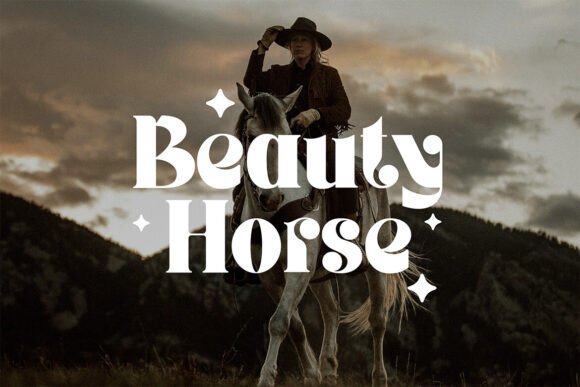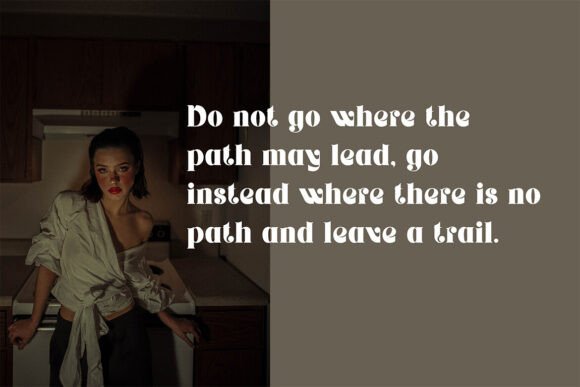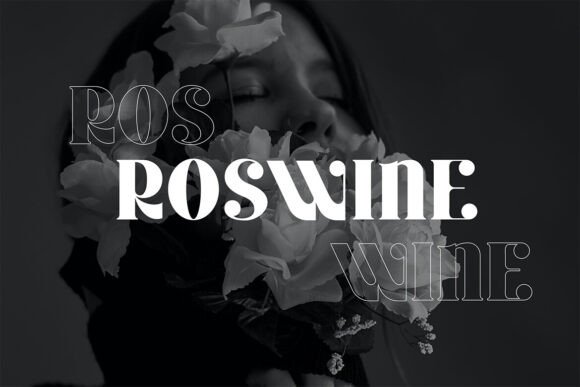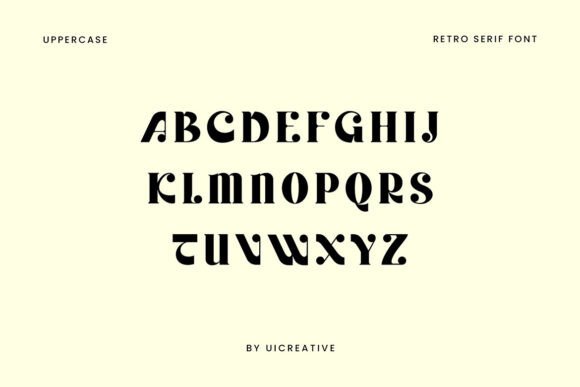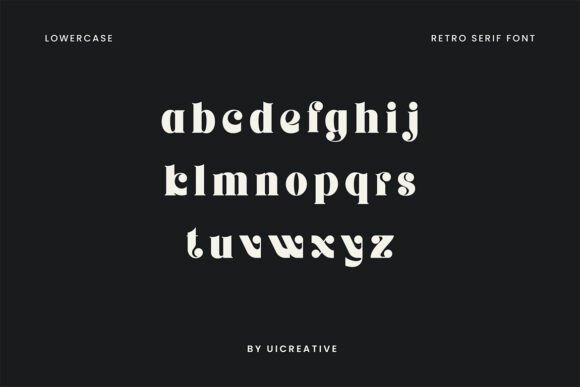
Introduction to Grandstand Font
As a designer, you know that finding the perfect font can be a game-changer for any creative project. It’s that moment when you stumble upon a design resource that elevates your entire concept – and the Grandstand Font is one of those gems. Imagine you’re working on a new logo, and you need a font that exudes a sense of sophistication and elegance, yet still conveys a touch of playfulness. That’s where Grandstand Font comes in – a retro serif font that’s perfect for a wide range of projects.
With its high-quality design and versatility, the Grandstand Font is an essential addition to any designer’s toolkit. Whether you’re working on a fashion-related branding project, creating editorial content, or simply need a font for your website headers, this font has got you covered. And the best part? You can even download it for free, with a transparent background to match your design needs.
Key Features of Grandstand Font
- High-quality design resource ideal for creative projects, including posters, flyers, and social media graphics.
- Features a transparent background, allowing for seamless integration with any design element.
- Unique characteristics include a bold, modern aesthetic and a wide range of style options.
- Suitable for use in a variety of creative projects, from advertisements to editorial content.
Honest Review: Grandstand Font
I recently came across the Grandstand Font and was excited to dive in and see what it had to offer. As a designer, I’m always on the lookout for high-quality design resources to elevate my creative projects.
- High-quality design: Grandstand Font is clean, crisp, and visually appealing.
- Limited character set: The font only includes a limited character set, which may not be suitable for projects that require a wide range of characters.
- Not suitable for complex text: The font may not be the best choice for projects that require a lot of complex text, such as long paragraphs or dense copy.
Overall, I’m impressed with the Grandstand Font and think it would be a great addition to any designer’s toolkit. While it may have some limitations, its high-quality design and free download make it a valuable resource for any creative project.
Common Use Cases for Grandstand Font
The Grandstand Font is particularly well-suited for use in designs that require a high level of sophistication and style, such as wedding invitations, business cards, and marketing materials. It’s also great for use in presentations and documents where a clear and readable font is essential.
Tips for Getting the Most Out of Grandstand Font
For the best results with the Grandstand Font, be sure to use it with a transparent background to really make the text stand out. You can also experiment with different font sizes and colors to add visual interest to your design.